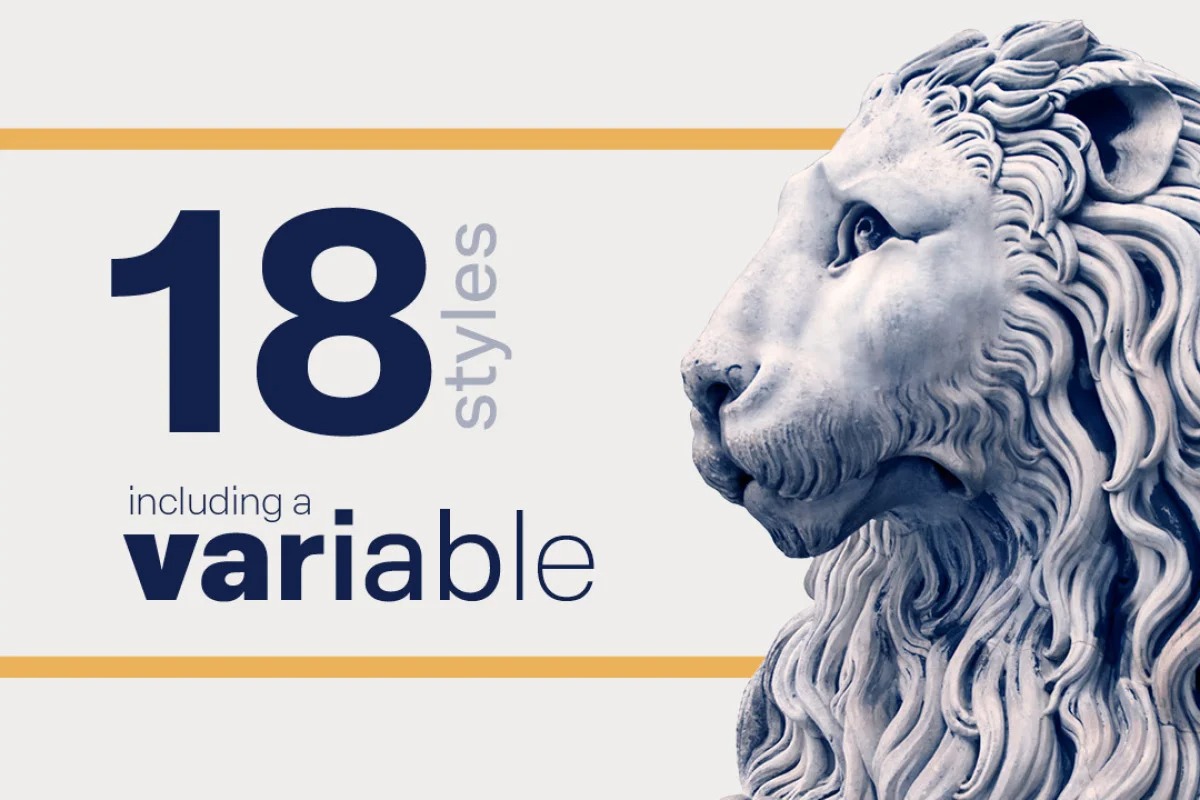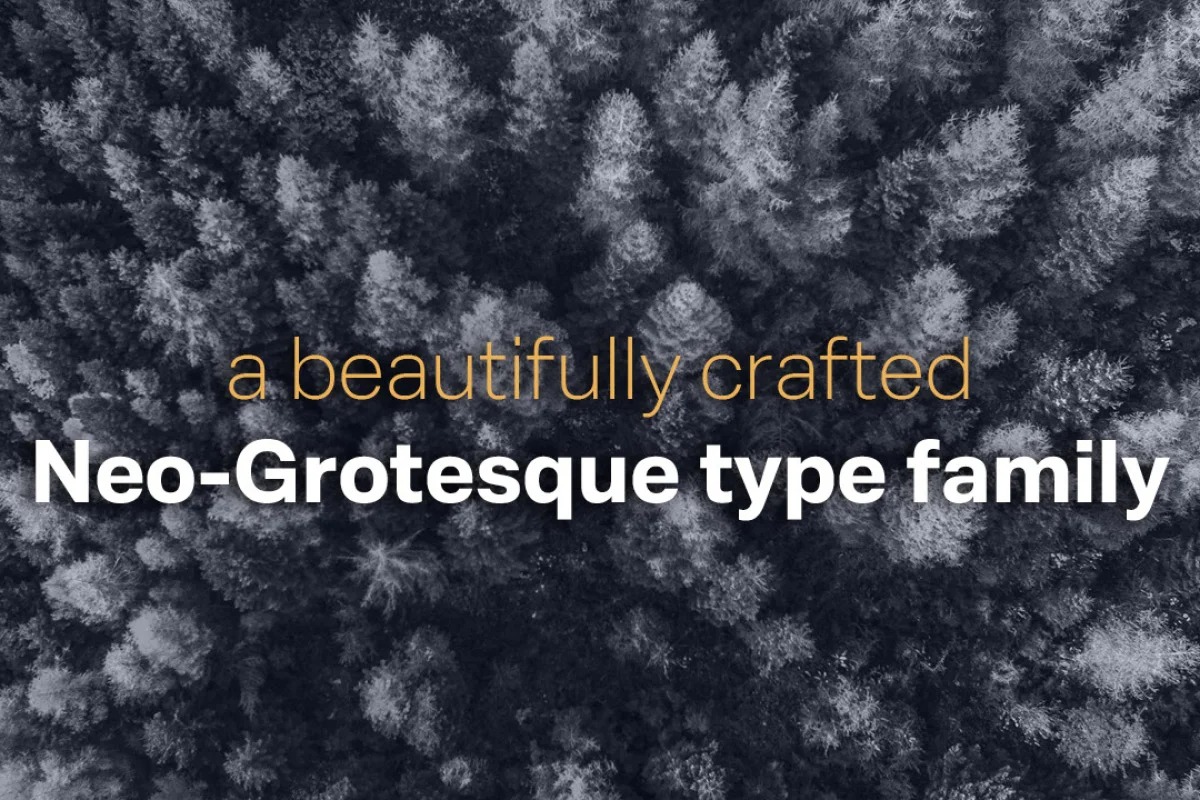
Mazin Sans Serif Font
This font comes with a geometric sans serif style and a modern and elegant sans serif tagline. Mazin is also equipped with the latest professional characteristics that can present an elegant and attractive identity for your company or project for business purposes.
Mazin is a beautifully crafted Neo-Grotesque type family containing nine upright and nine italic fonts as well as a variable font suitable for all environments.